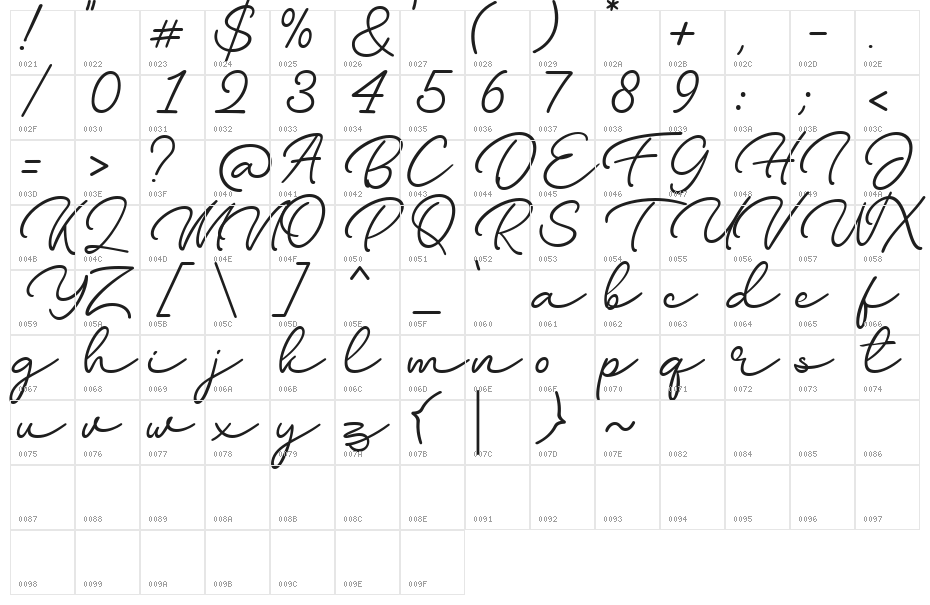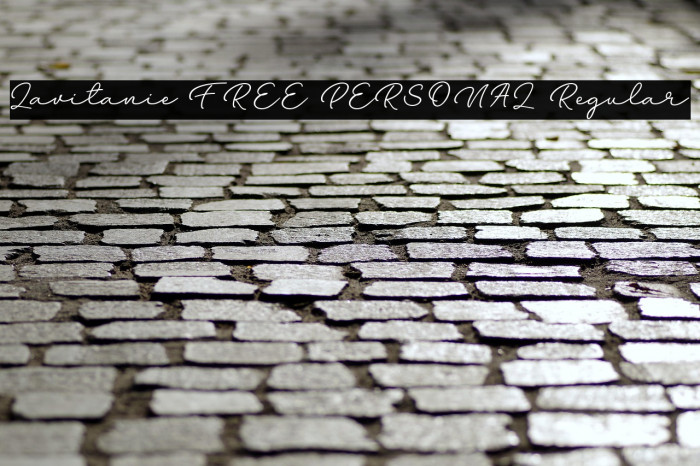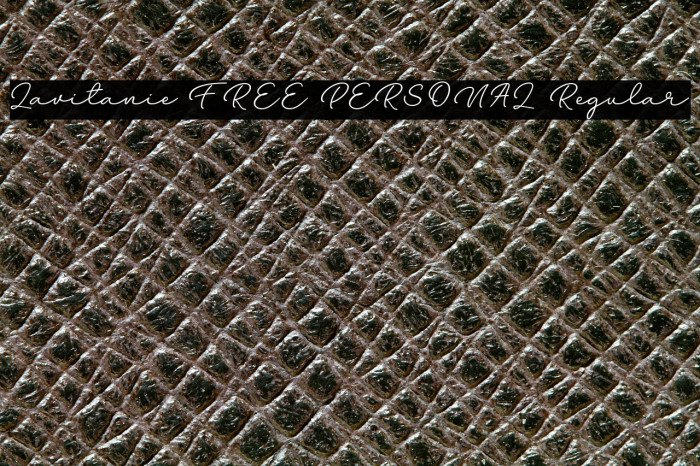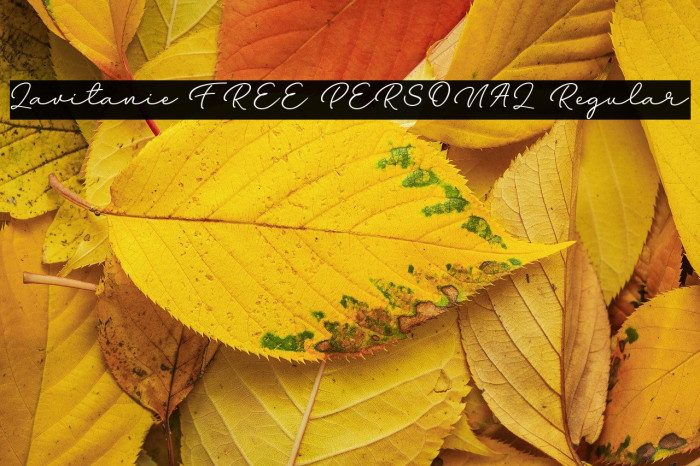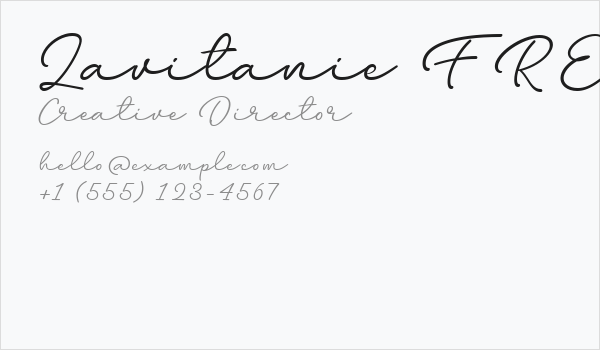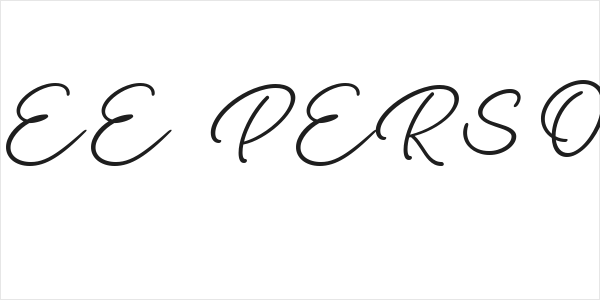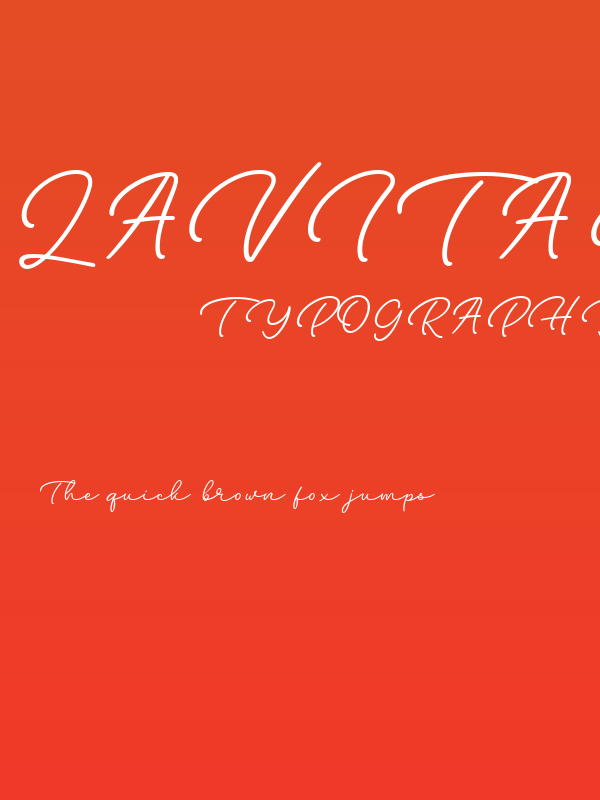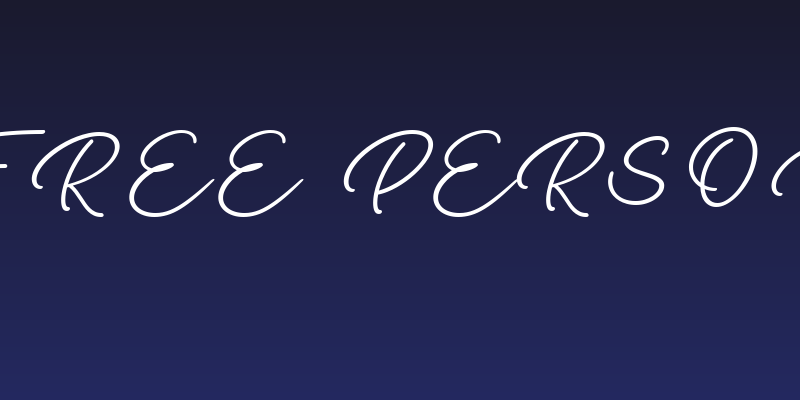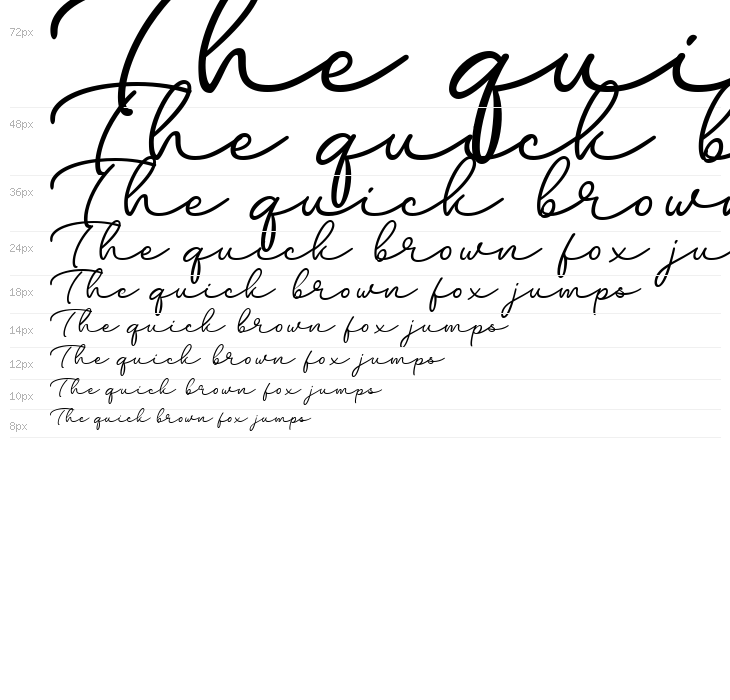
Lavitanie FREE PERSONAL Regular Font
Lavitanie FREE PERSONAL Regular Description
This font features an elegant and flowing script style, characterized by its smooth, continuous strokes and a handwritten appearance. The uppercase letters are slightly more ornate, with gentle curves and loops that add a touch of sophistication. The lowercase letters maintain a consistent flow, enhancing readability while preserving the font's artistic flair. Numbers and special characters are designed to match the overall aesthetic, ensuring a cohesive look across all text elements. This font is ideal for projects that require a personal and stylish touch.
| Overall Style | Elegant, Decorative |
| Proposed Projects | Ideal for wedding invitations, greeting cards, personal branding, and decorative quotes. |